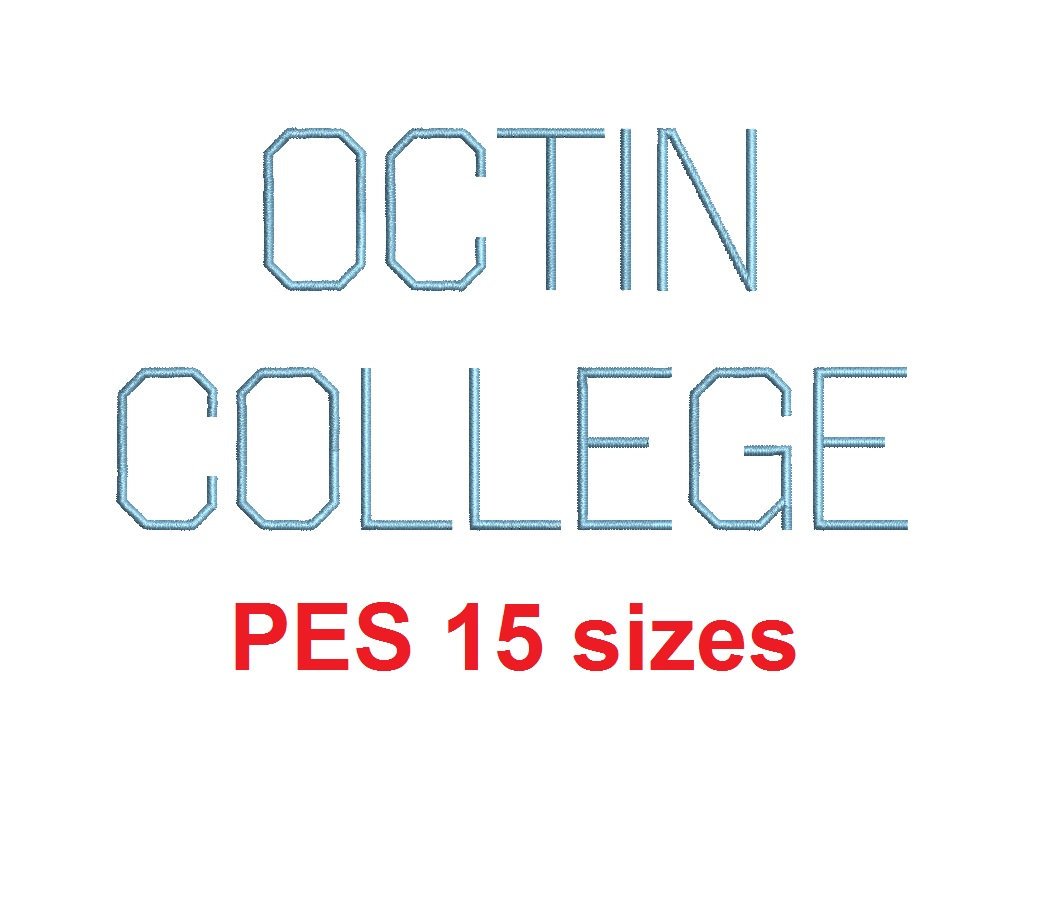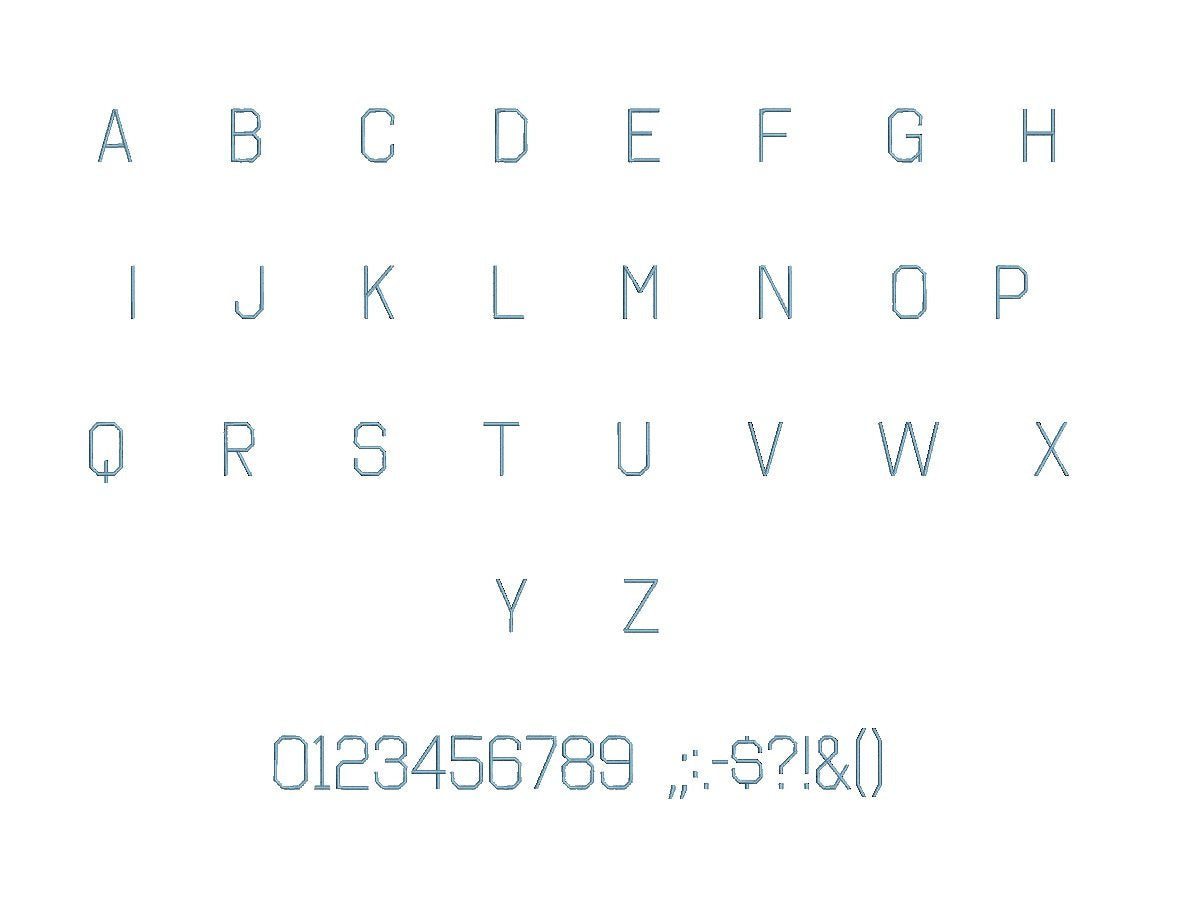
Satin Stitches (with auto stitch for the larger sizes)
This Embroidery Font Alphabet set contains: 26 upper case letters 26 lower case letters 0 to 9 numbers 11 punctuation marks $(),;.:-&?!